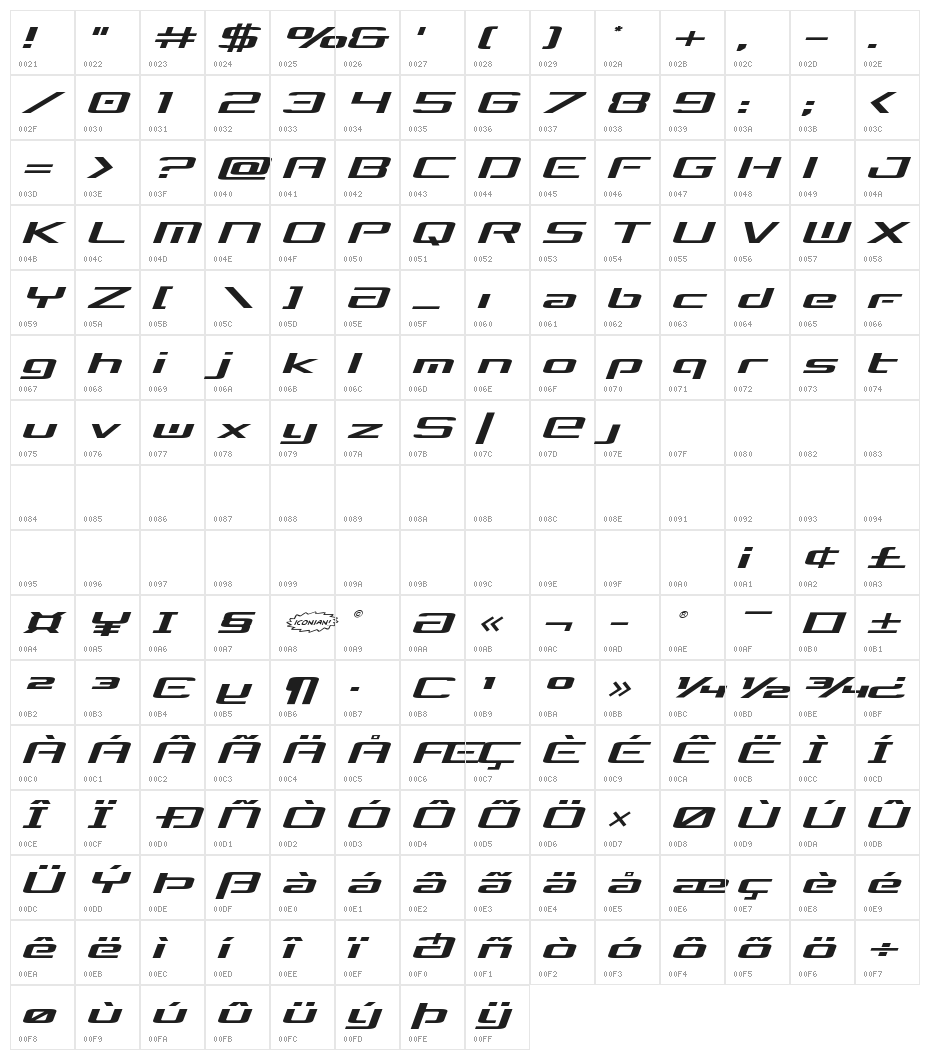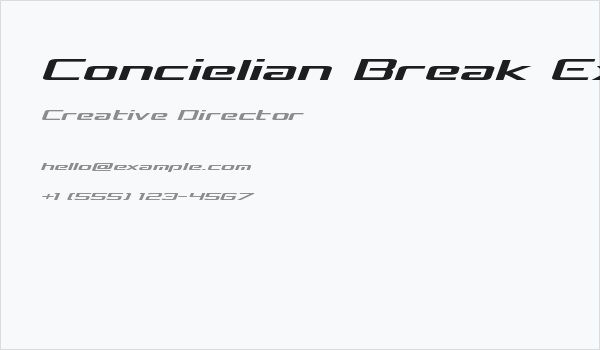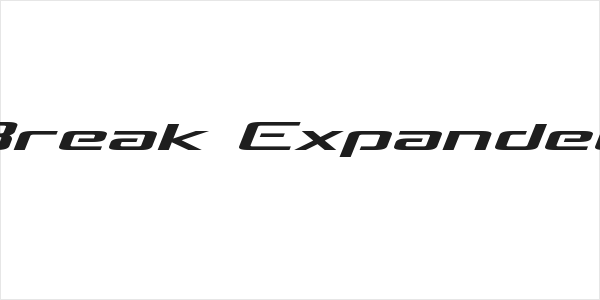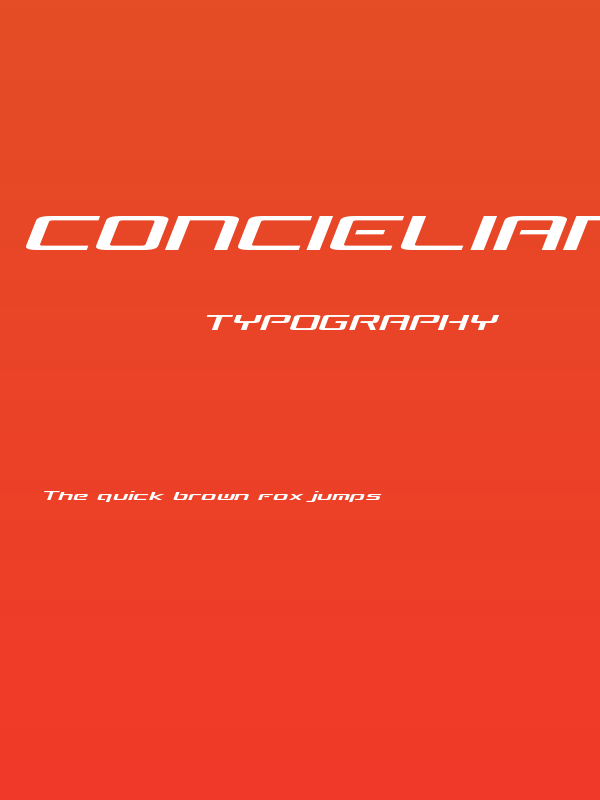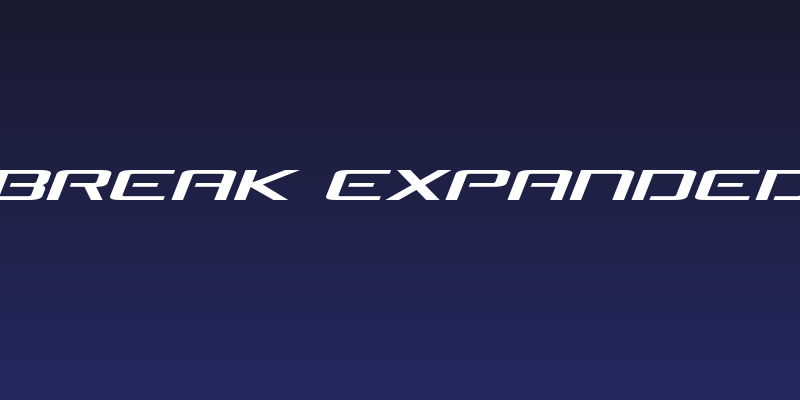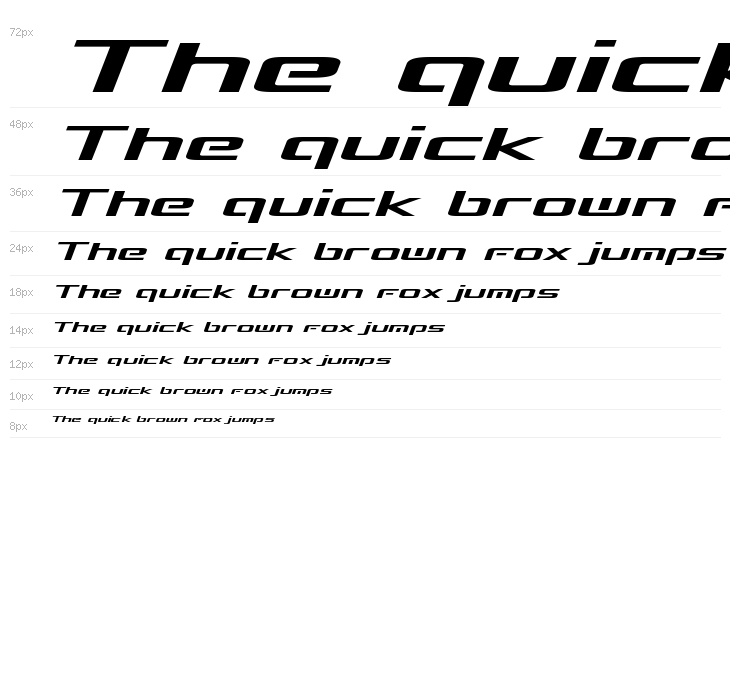
Concielian Break Expanded Semi-Italic Font
Concielian Break Expanded Semi-Italic Description
This font features a futuristic and dynamic design with a semi-italic slant, giving it a sense of motion and speed. The characters are expanded, providing a wide and open appearance that enhances readability while maintaining a unique style. The strokes are consistent in weight, offering a balanced look that is both modern and sleek. The angular cuts and sharp edges contribute to its contemporary aesthetic, making it suitable for projects that require a bold and distinctive typeface. The font includes a full set of uppercase and lowercase letters, numerals, and a variety of special characters, ensuring versatility in its application.
| Use Case | Logos, Headlines, Branding |
| Proposed Projects | Ideal for branding, technology-related designs, sports team logos, and modern advertising campaigns. |